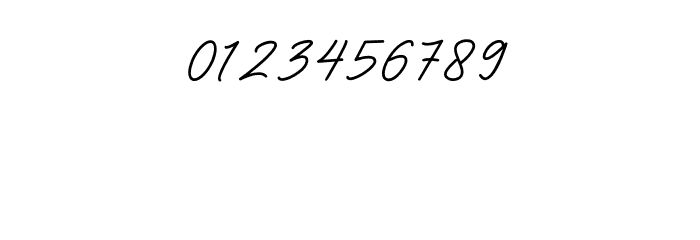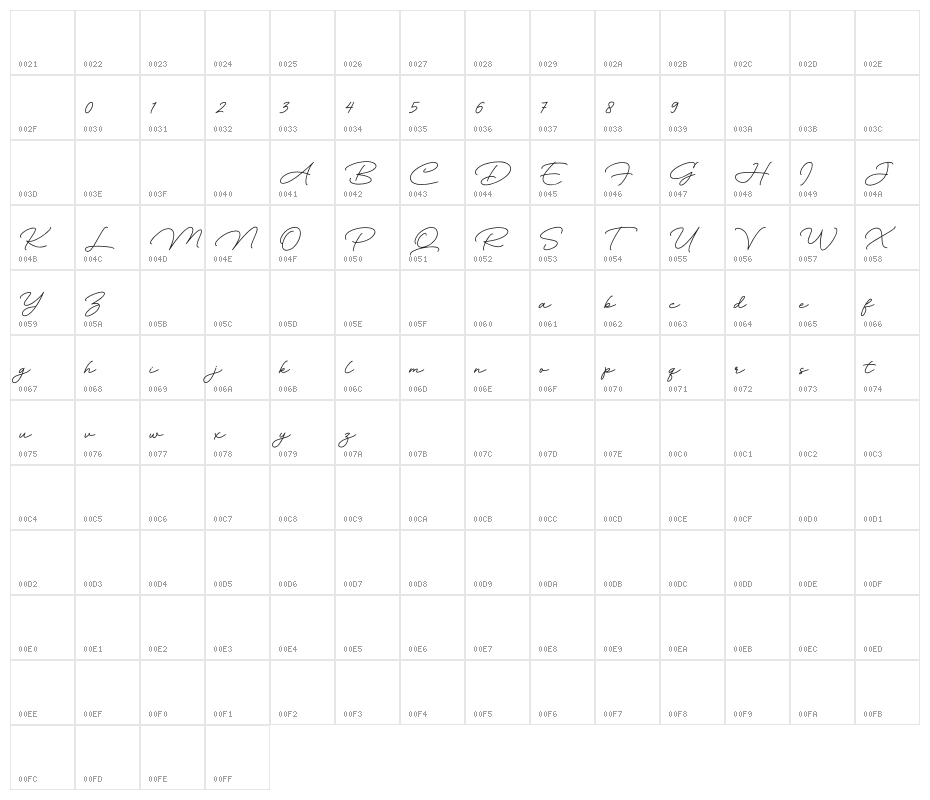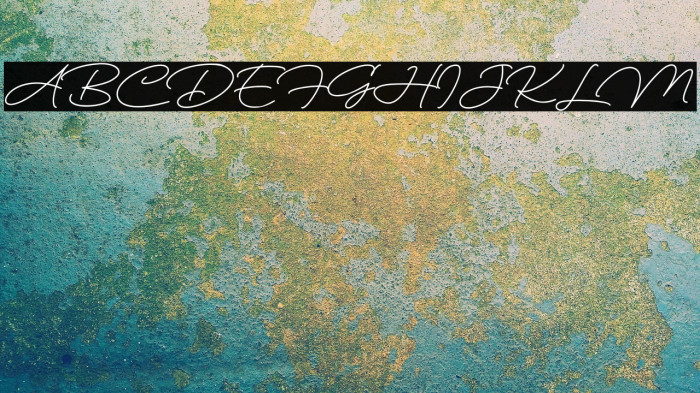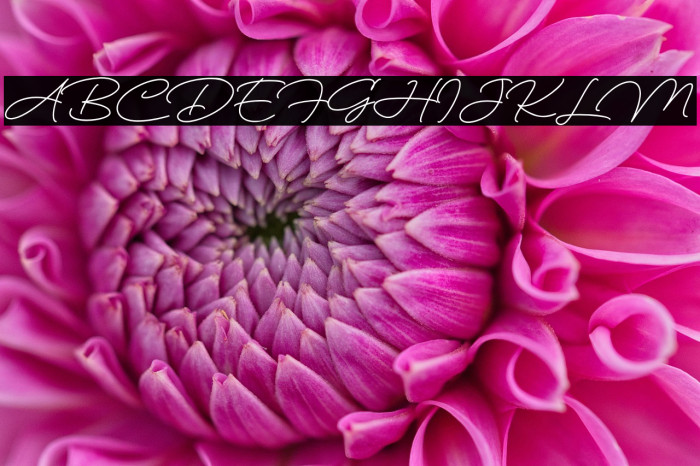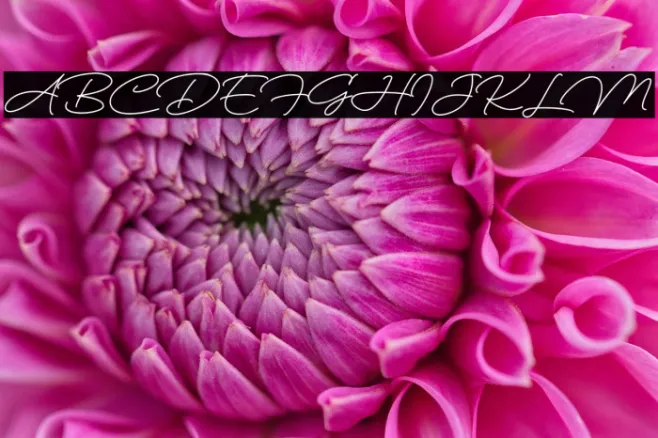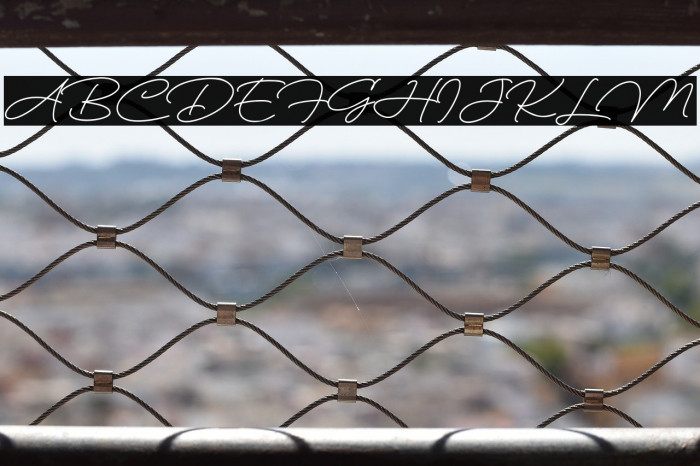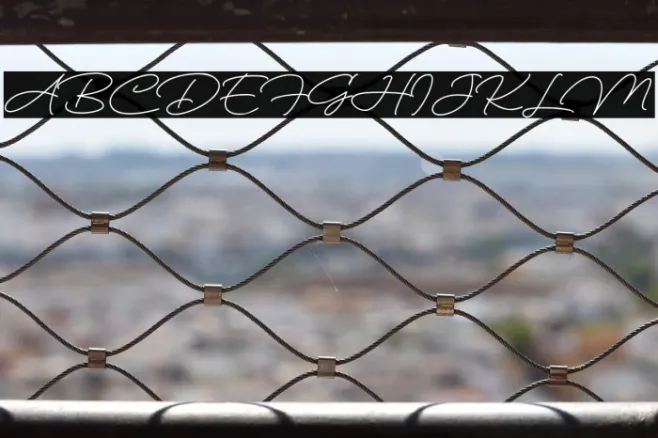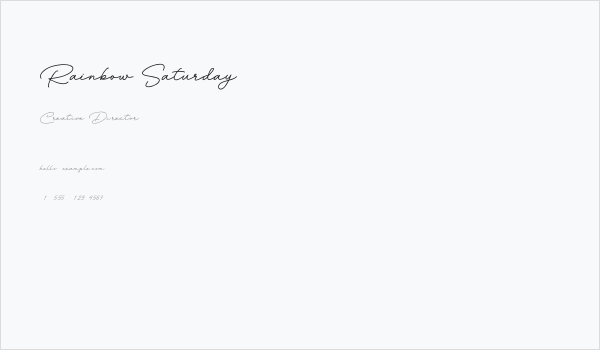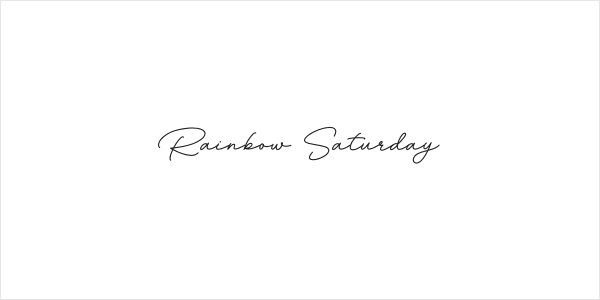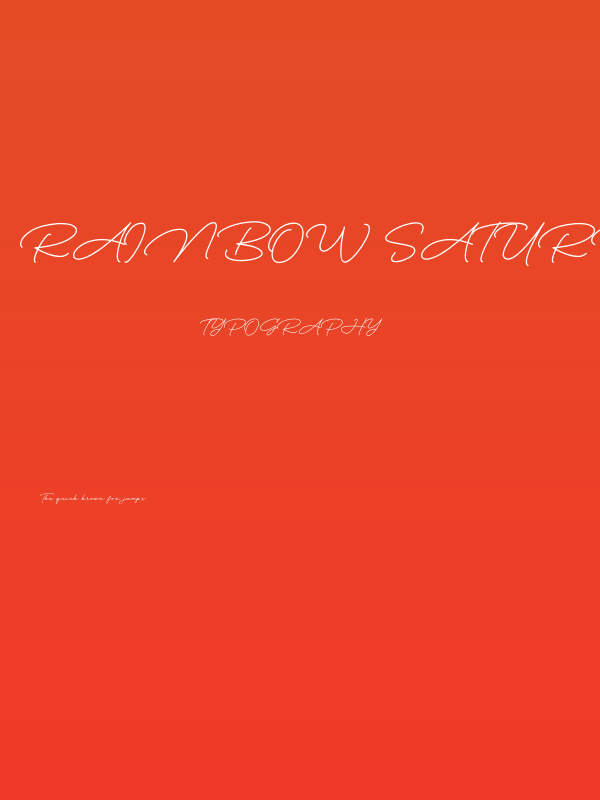
Rainbow Saturday Font
Rainbow Saturday Description
This elegant script font features a fluid, cursive style with smooth, flowing lines that mimic natural handwriting. The uppercase letters are gracefully elongated, adding a touch of sophistication and charm. The lowercase letters maintain a consistent flow, with gentle curves and loops that enhance readability while preserving the artistic flair. The numerals are designed to match the overall aesthetic, offering a cohesive look across all characters. This font exudes a sense of elegance and refinement, making it ideal for projects that require a personal, handwritten touch.
| Proposed Projects | Ideal for wedding invitations, greeting cards, personal branding, and elegant stationery. |